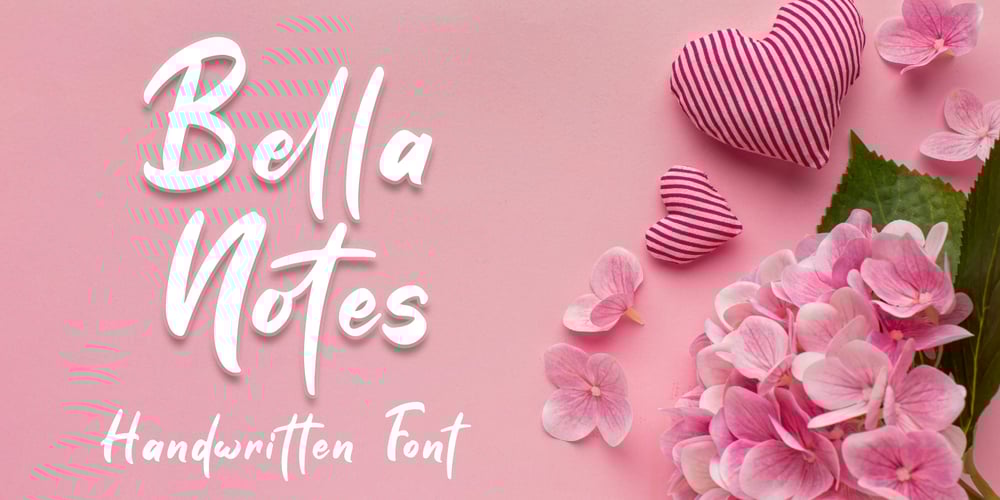
Bella Notes
Bella Notes font
Bella Notes Font Family was designed by Fadli Ramadhan Iskandar and published by Attype Studio. Bella Notes contains 1 styles and family package options. Bella Notes is lovely Handwritten font, including ligatures that perfect for any combination for your design. Bella Notes perfectly macth for design with valentine theme, any product like book cover, t-shirt, branding, promotion, social media post, quotes, wedding, photography and more. What’s included:- Ligatures- Multilingual Support